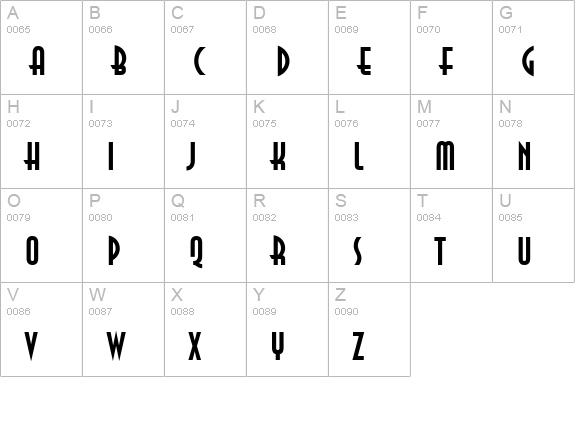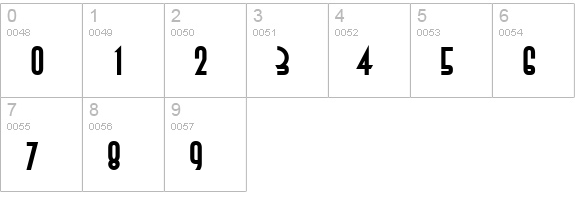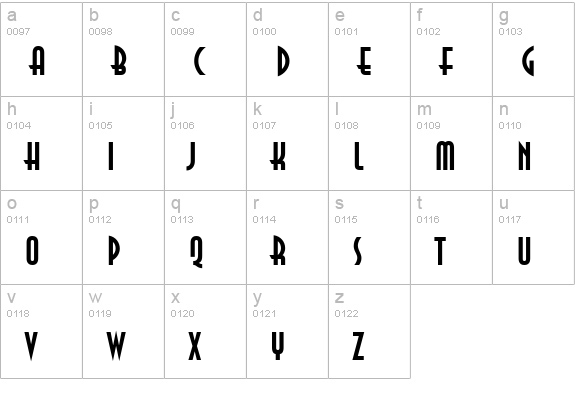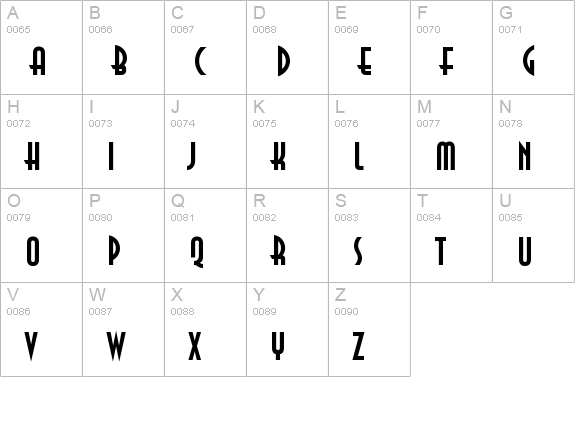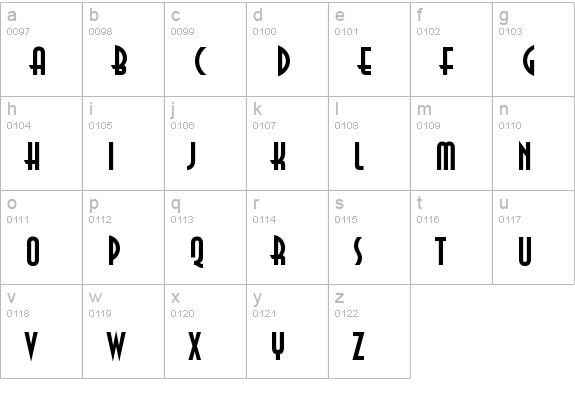
PT Anna Bold Cyrillic Font Details
PT Anna Bold Cyrillic is a strong, high-contrast variant in the PT typeface family \xE2\x80\x94 well suited to headlines, attention-grabbing titles, and strong calls-to-action.
PT Anna Bold Cyrillic is a stunning and elegant font that exudes sophistication and style. With its bold and distinctive Cyrillic characters, this font is perfect for creating eye-catching designs that demand attention. The clean lines and modern aesthetic of PT Anna Bold Cyrillic make it a versatile choice for a wide range of projects, from branding to editorial design. The best part? PT Anna Bold Cyrillic is available for free download at FontsMarket.com. This means you can easily access this beautiful font and start using it in your projects without any cost. Whether you are a designer looking to add a touch of elegance to your work or a business owner wanting to elevate your brand identity, PT Anna Bold Cyrillic is the perfect choice. Download it now and take your designs to the next level!